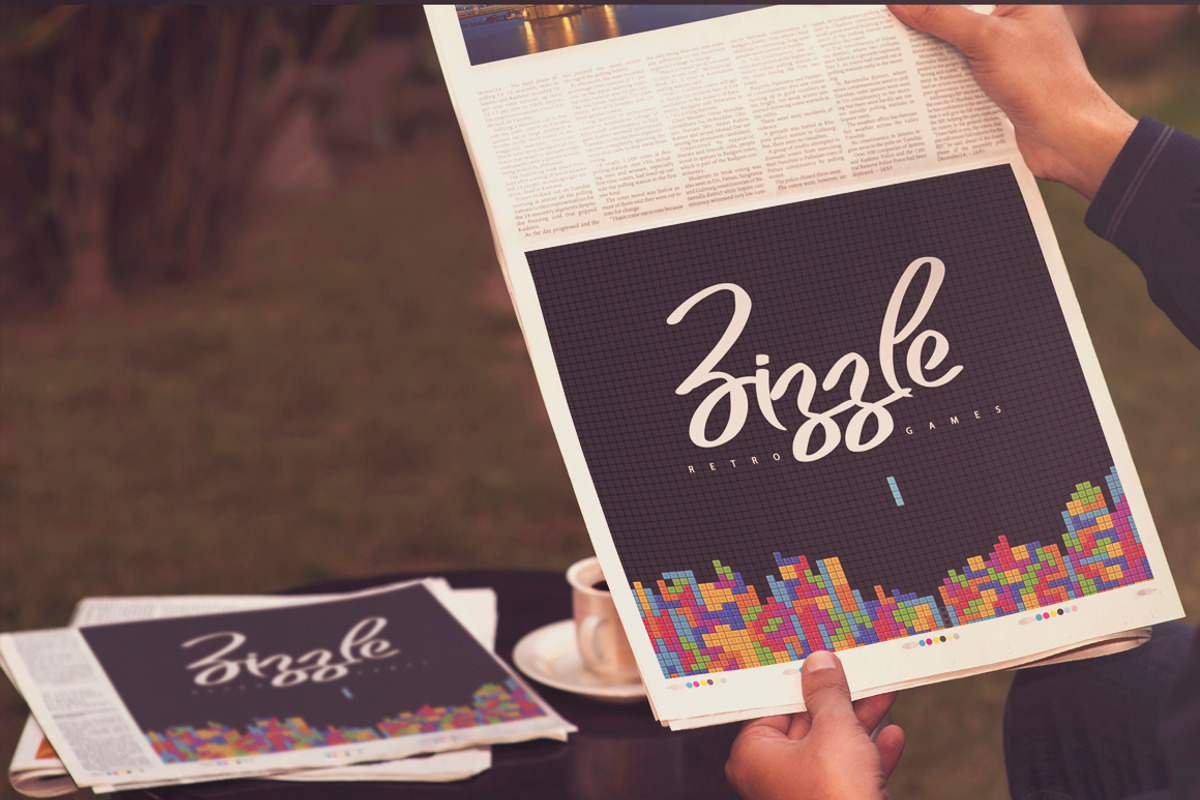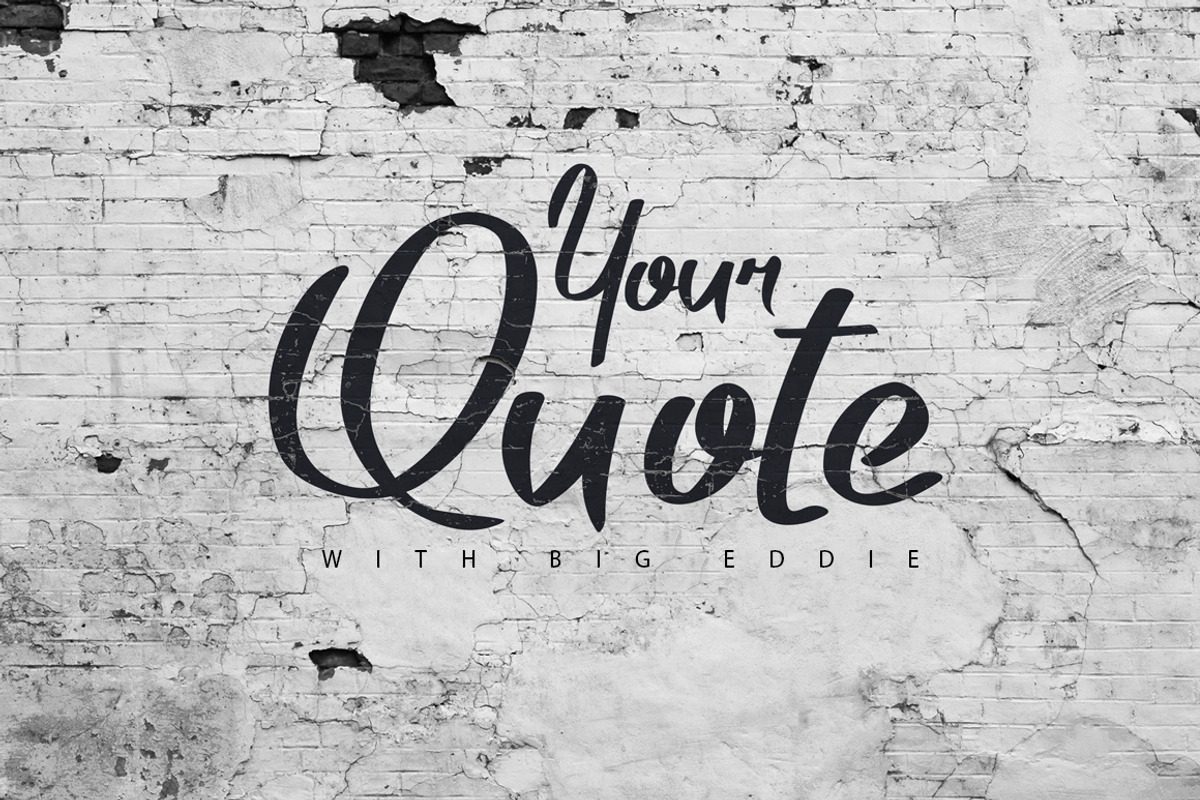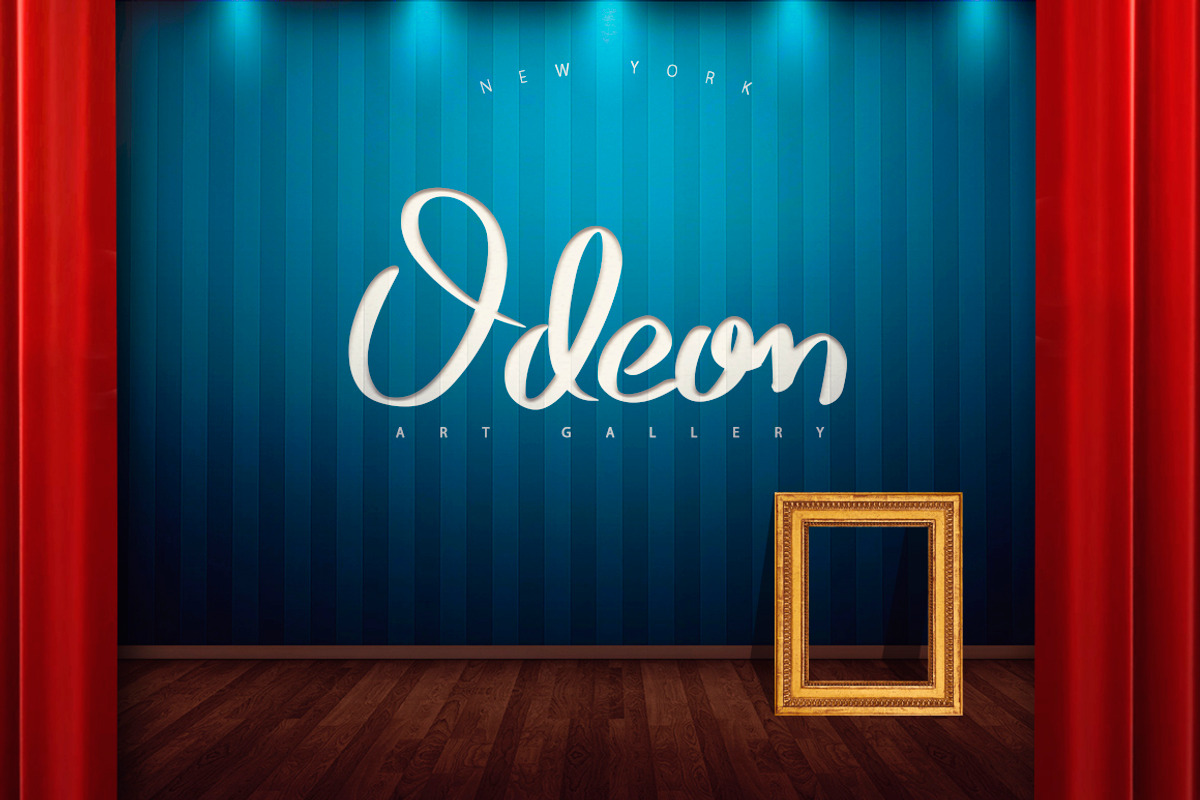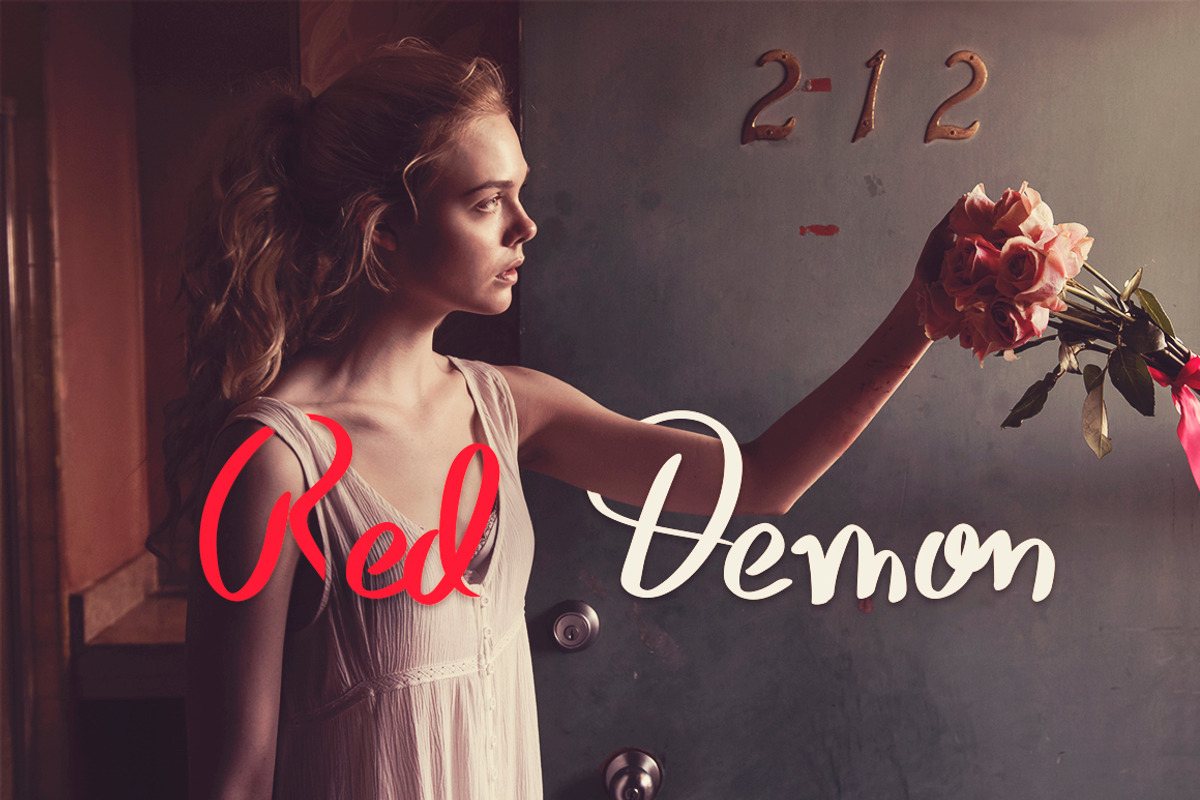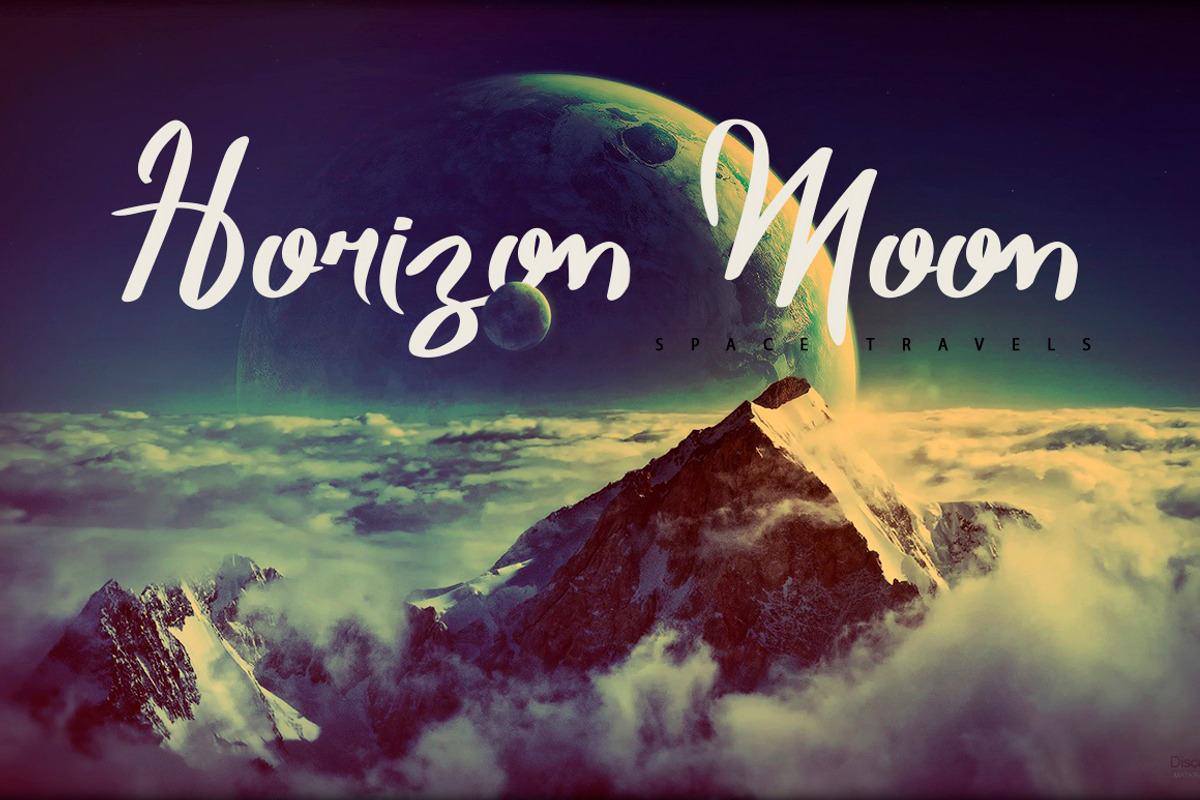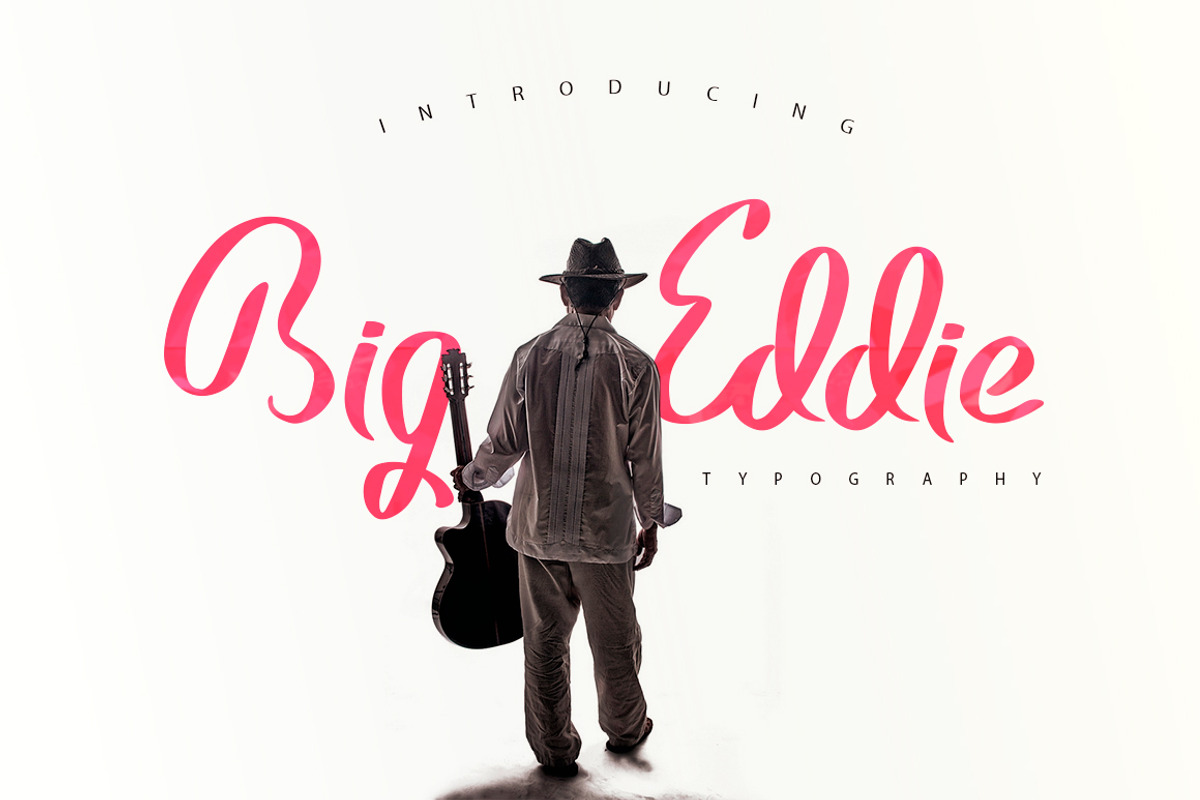
Big Eddie Script Typeface
Big Eddie Script Typeface by SmartDesigns is a font selected for branding, posters, packaging, typography.
Why Big Eddie Script Typeface is worth a look
Big Eddie Script Typeface by SmartDesigns fits naturally into Branding, posters, packaging, typography.